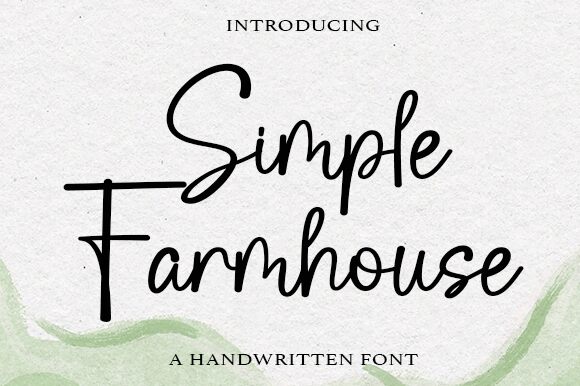
Simple Farmhouse
Simple Farmhouse, designed by Wahyu Studio, is a handwritten font that embodies the warmth and charm of rustic design. Its semi-light weight and semi-condensed width create an aesthetic that is both inviting and efficient, capturing the essence of simplicity with a touch of elegance. The flowing characters of Simple Farmhouse are reminiscent of personal notes penned with care, making it an excellent choice for projects that require a human touch.
This font's versatility allows it to shine in a variety of creative contexts—from branding materials and packaging to social media graphics and editorial designs. With its approachable yet polished appearance, Simple Farmhouse is particularly suitable for those seeking to convey authenticity and comfort in their visual messaging.